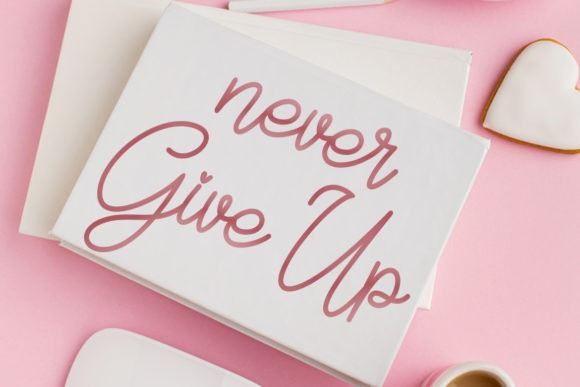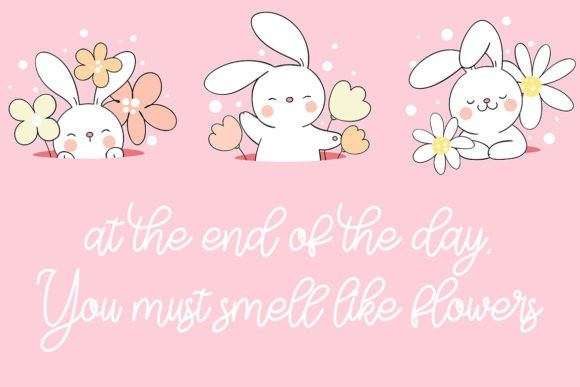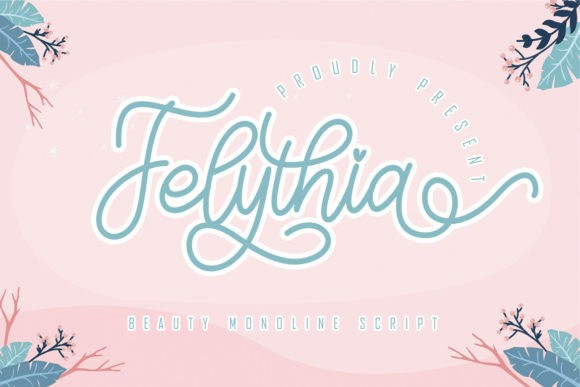
Felythia Handwriting Font
Felythia Handwriting Font is a beautiful light handwritten font with a unique feel and a stunning impact. It will add a luxury spark to any design project that you wish to create! This font is PUA encoded which means you can access all of the amazing glyphs and ligatures with ease!